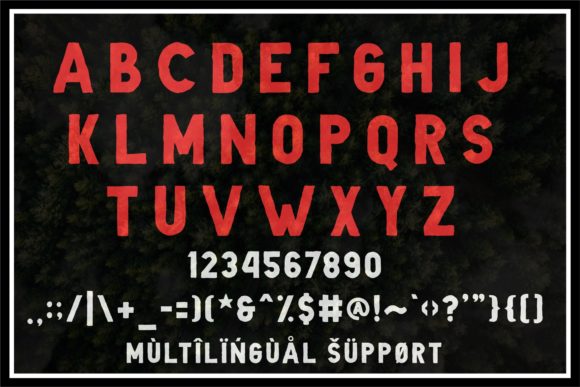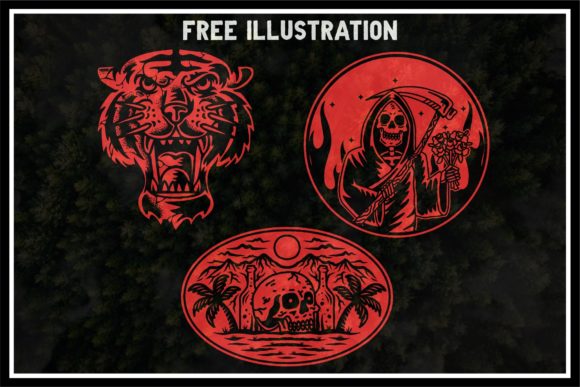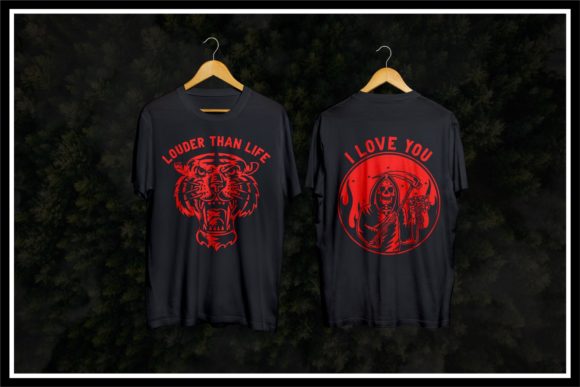
The Perfect Font for Making a Statement
Remember that moment when you’re brainstorming ideas for a new project and you just can’t seem to find the right font to bring it all together? The frustration is real, but don’t worry, we’ve got you covered! Introducing the Bold Bones Font, a stunning display font that’s guaranteed to make your designs pop.
This bold, thick lettered font has a vintage charm that’s perfect for posters, flyers, and prints. Whether you’re a seasoned designer or just starting out, the Bold Bones Font is a valuable tool to have in your arsenal. With its endless possibilities, you can create eye-catching graphics that really make a statement.
So why settle for a generic font when you can make a bold impression with the Bold Bones Font? Whether you’re creating a promotional poster or a social media graphic, this font is sure to elevate your designs and leave a lasting impression.
Bold Bones Font Key Features
- Font Family: Bold Bones is a unique, bold sans-serif font designed to add a touch of personality to your designs.
- Unique Characteristics: The font features bold, geometric shapes and a distinctive personality that sets it apart from other sans-serif fonts.
Bold Bones Font Review
Overall, I’m quite impressed with the Bold Bones Font. Here are some of its notable strengths: ✨ It has a bold and modern look that can easily grab attention, making it perfect for headlines and titles. ✨ The font is highly customizable, with a wide range of weights and styles to choose from, allowing designers to achieve the desired look and feel. ✨ It’s also highly legible, even at smaller font sizes, making it suitable for various digital applications.
However, there are some limitations to consider: ⚠️ The font may not be suitable for body text, as it can be a bit overwhelming when used extensively. ⚠️ Some users may find the font too bold or flashy, which can be a turn-off for those who prefer a more subtle design approach. ⚠️ The font’s boldness can also make it difficult to read for those with vision impairments or dyslexia.
Overall, I think Bold Bones Font is a great addition to any designer’s toolkit. While it may have some limitations, its strengths far outweigh its weaknesses, making it a great choice for designers who want to add a touch of modernity and boldness to their designs.
- Perfect for headlines and titles
- Highly legible
Use the Bold Bones Font for:
1. Headlines and titles to add a bold and edgy touch.
2. Emphasizing key points or calls-to-action.
3. Creating a bold and modern aesthetic in your designs.